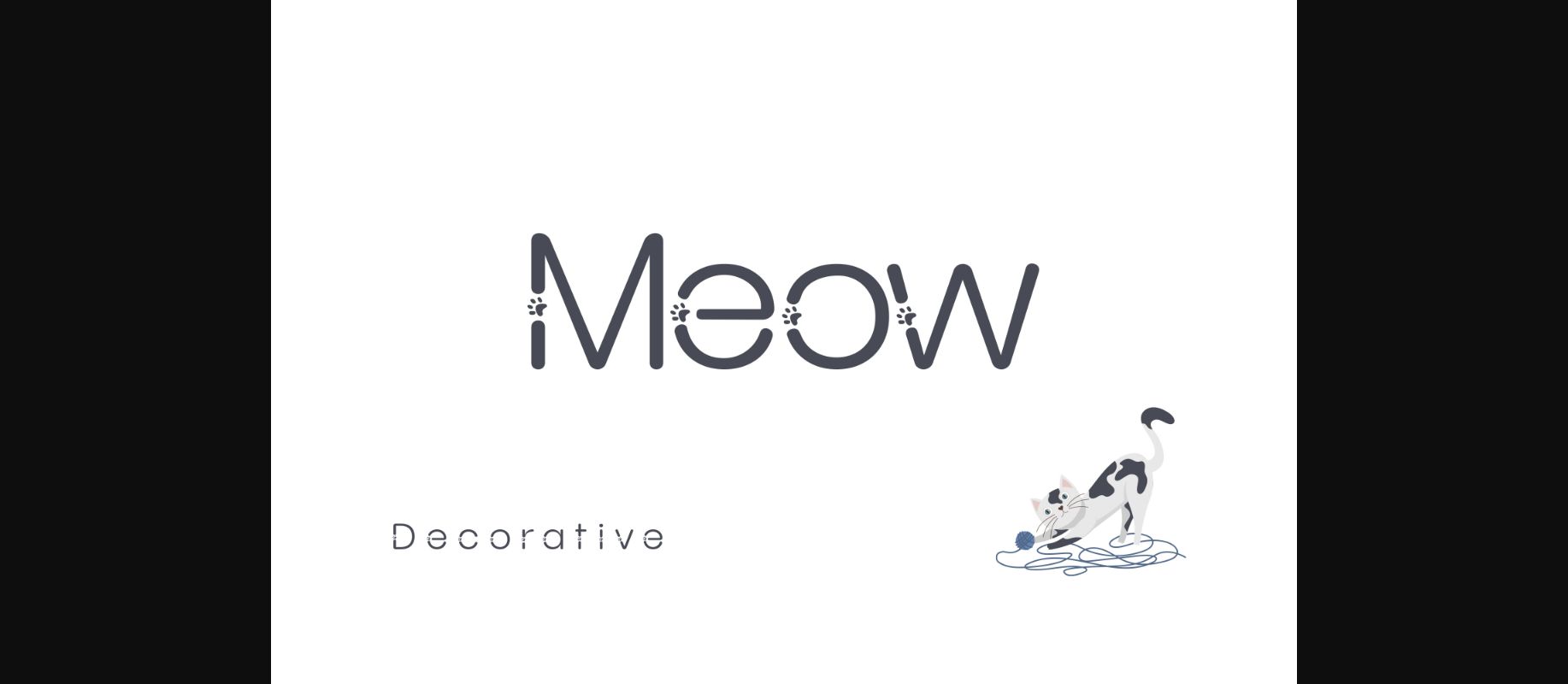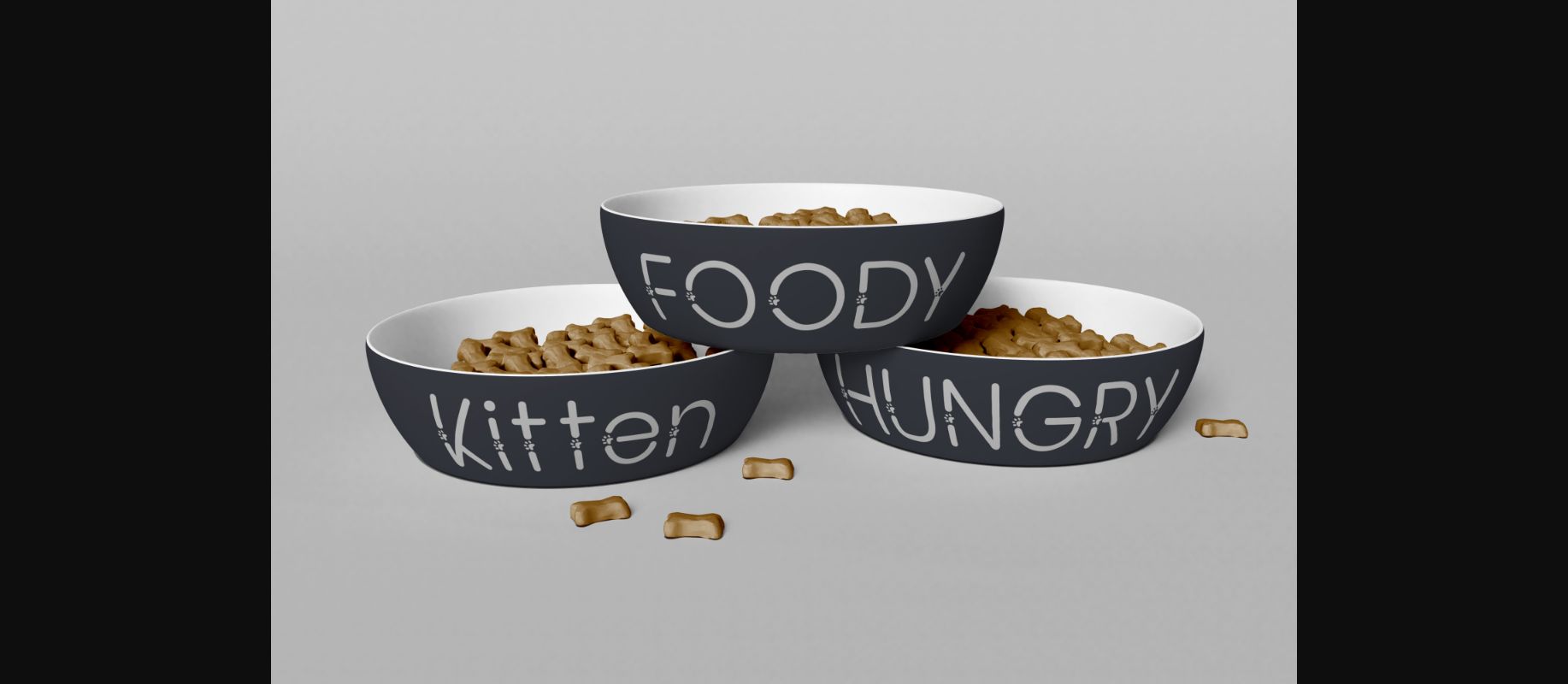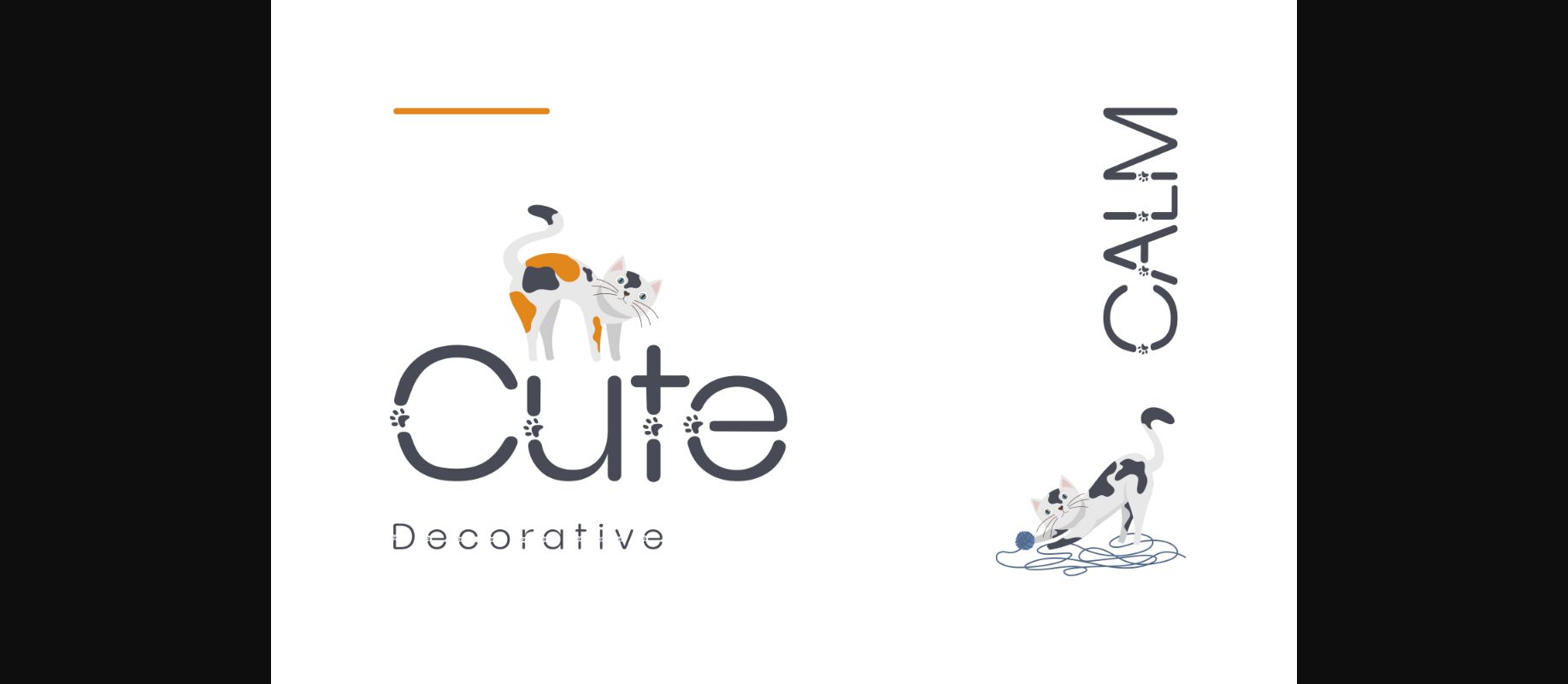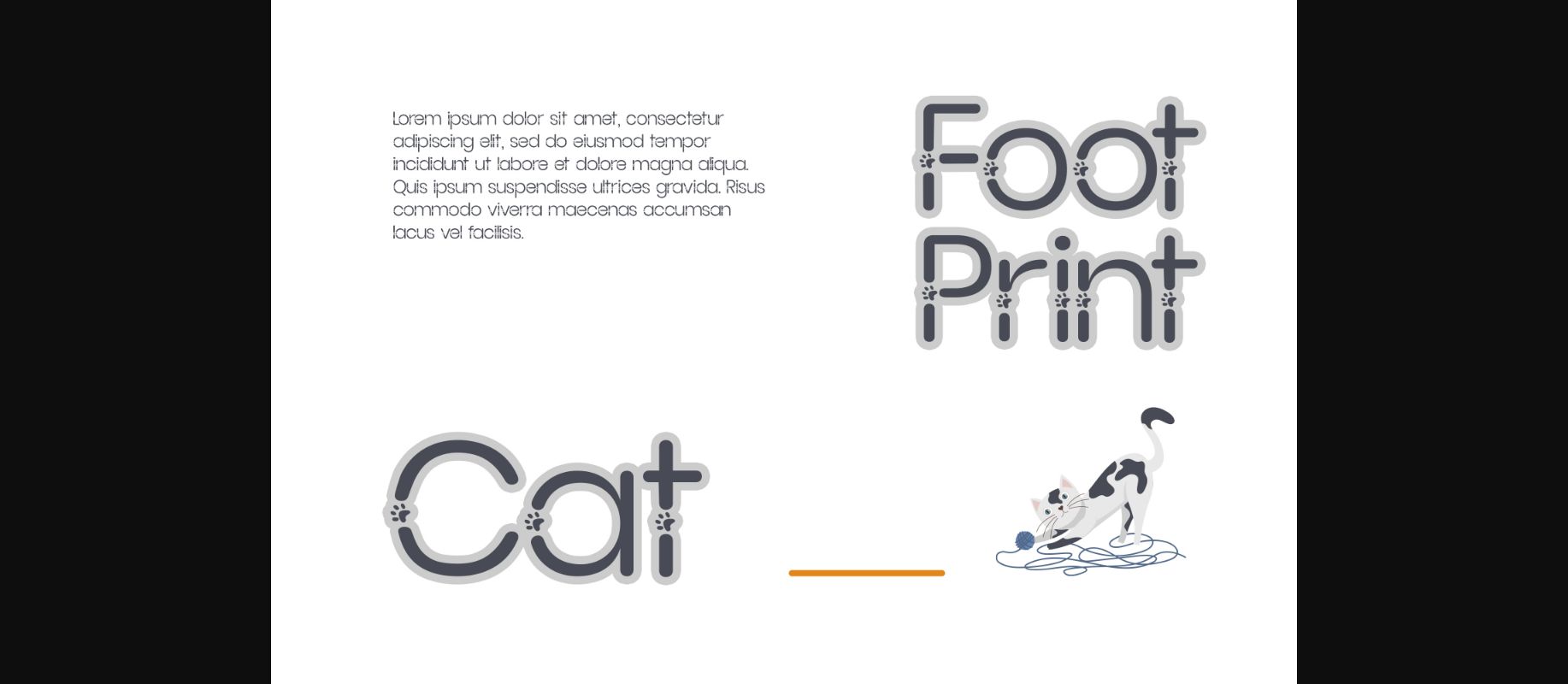
About Meow Font
Meow is a modern and chic decorative font that is ideal for pet lovers or playful designs. It is a good choice for display, headlines, paragraphs, subheadings, notes, and large banners.